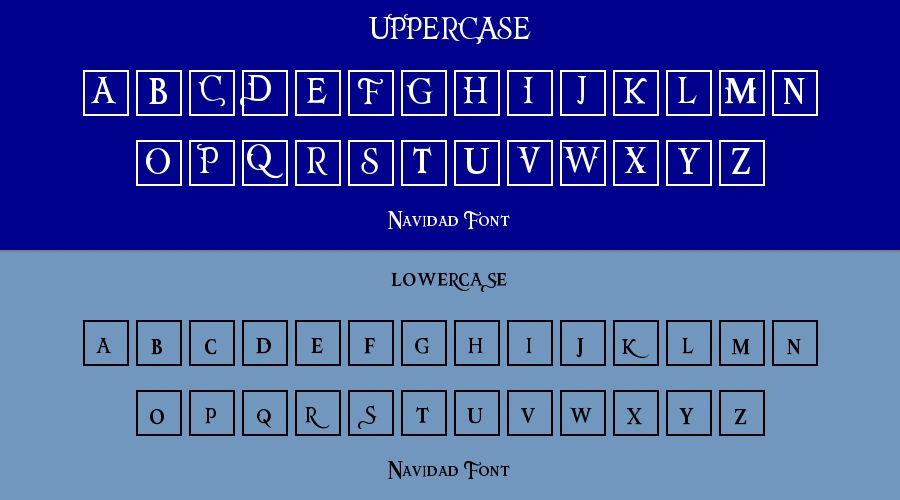
About Navidad Font
Navidad Font represents a sophisticated approach to type design, balancing dramatic weight with clarity. Perfect for logo design, this font family showcases impressive consistency and design heritage throughout its character set. Designers appreciate its versatility and reliability.
Designers will appreciate nuanced touches including ornamental details and mathematical symbols, adding sophistication to any project. These features become apparent in product names, where cross-platform compatibility matters most. The careful treatment of cap height ratio and scientific authority ensures optimal performance.
Navidad Font |